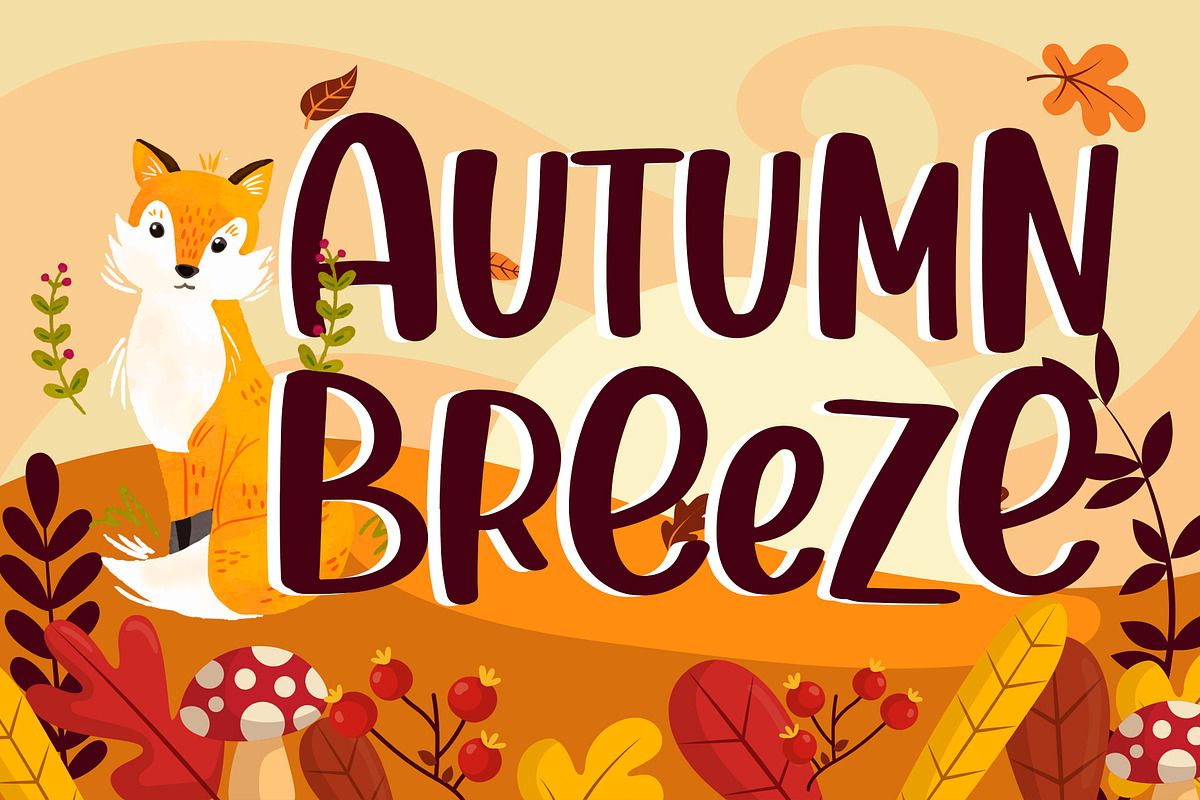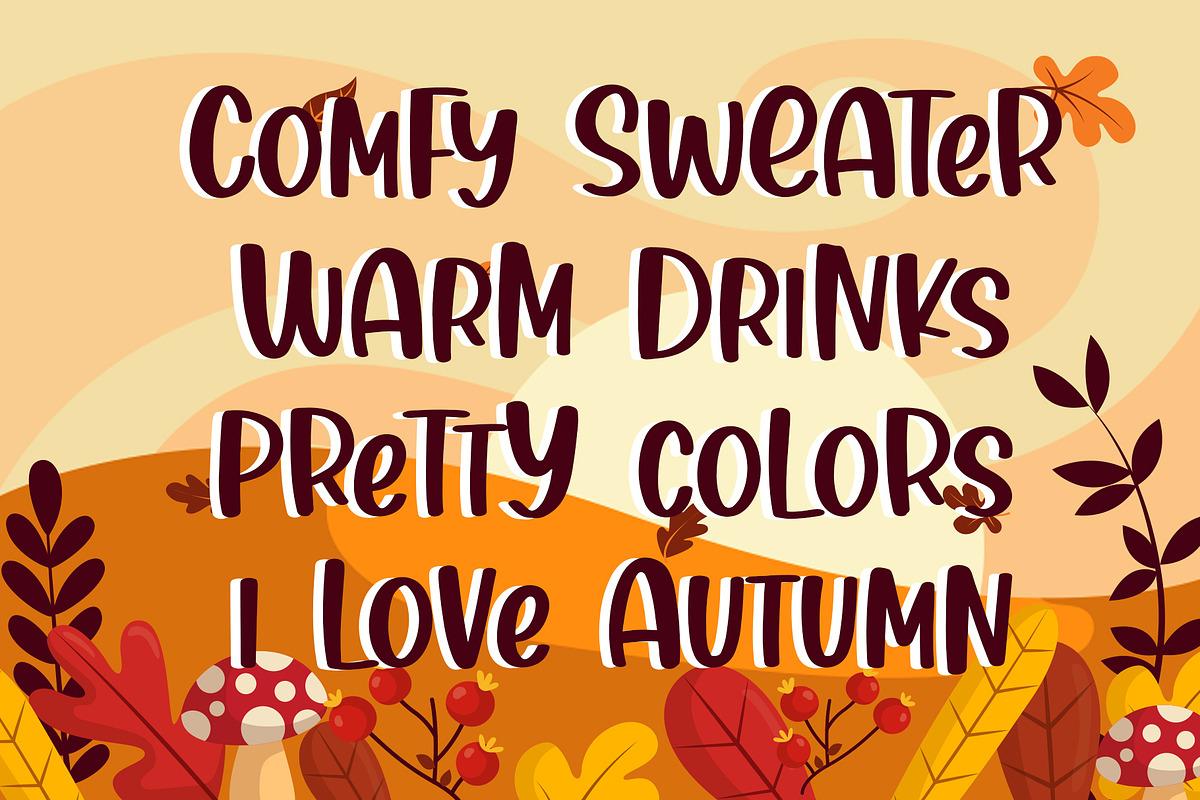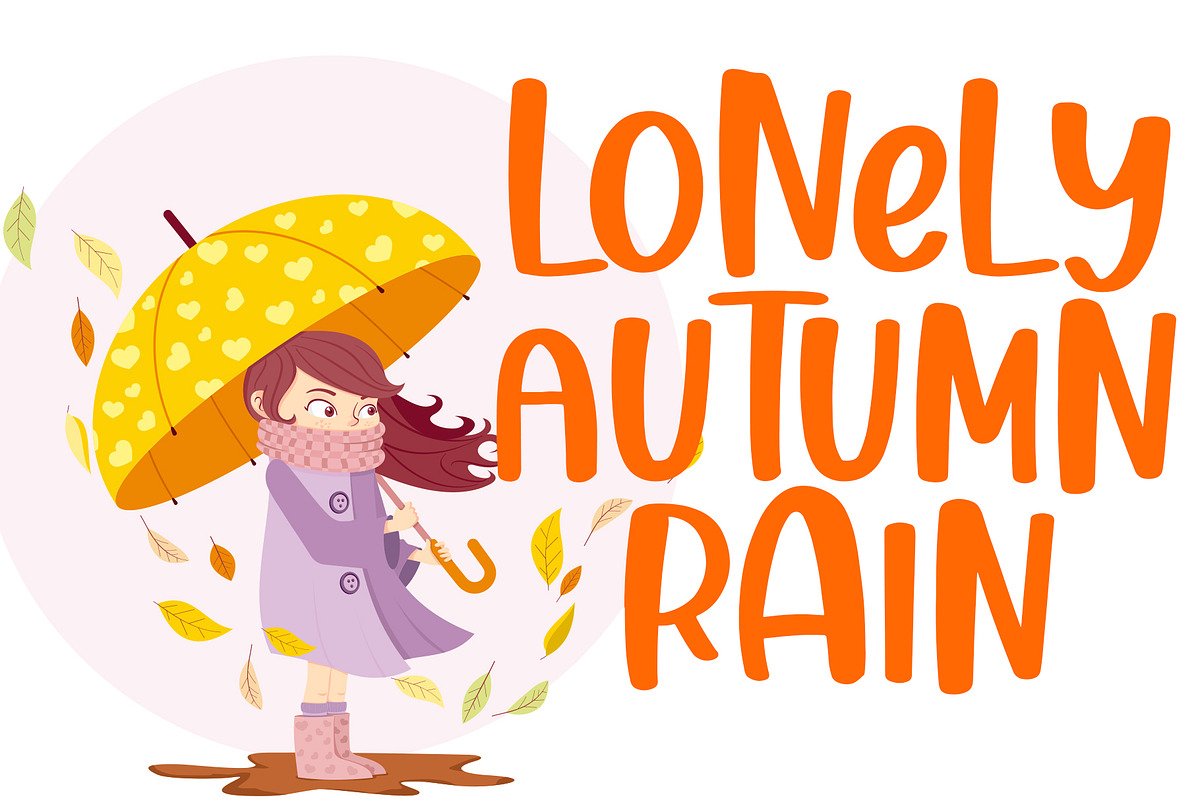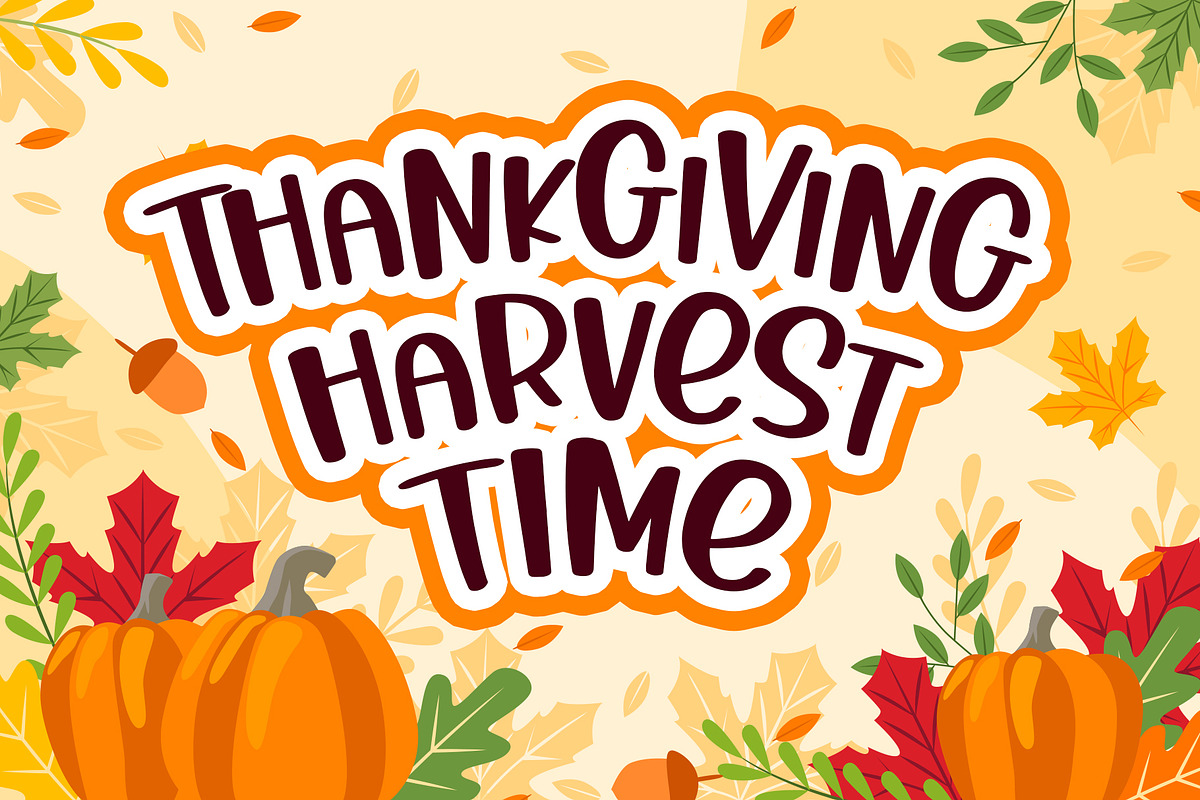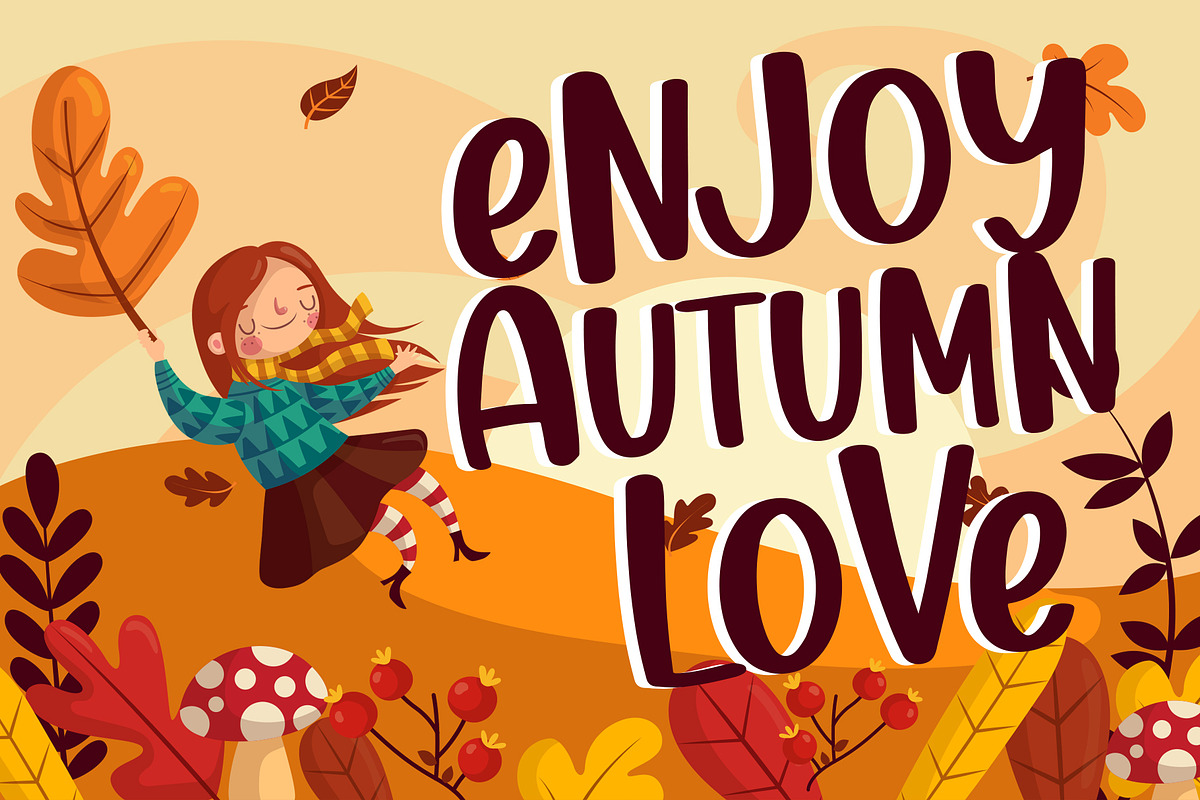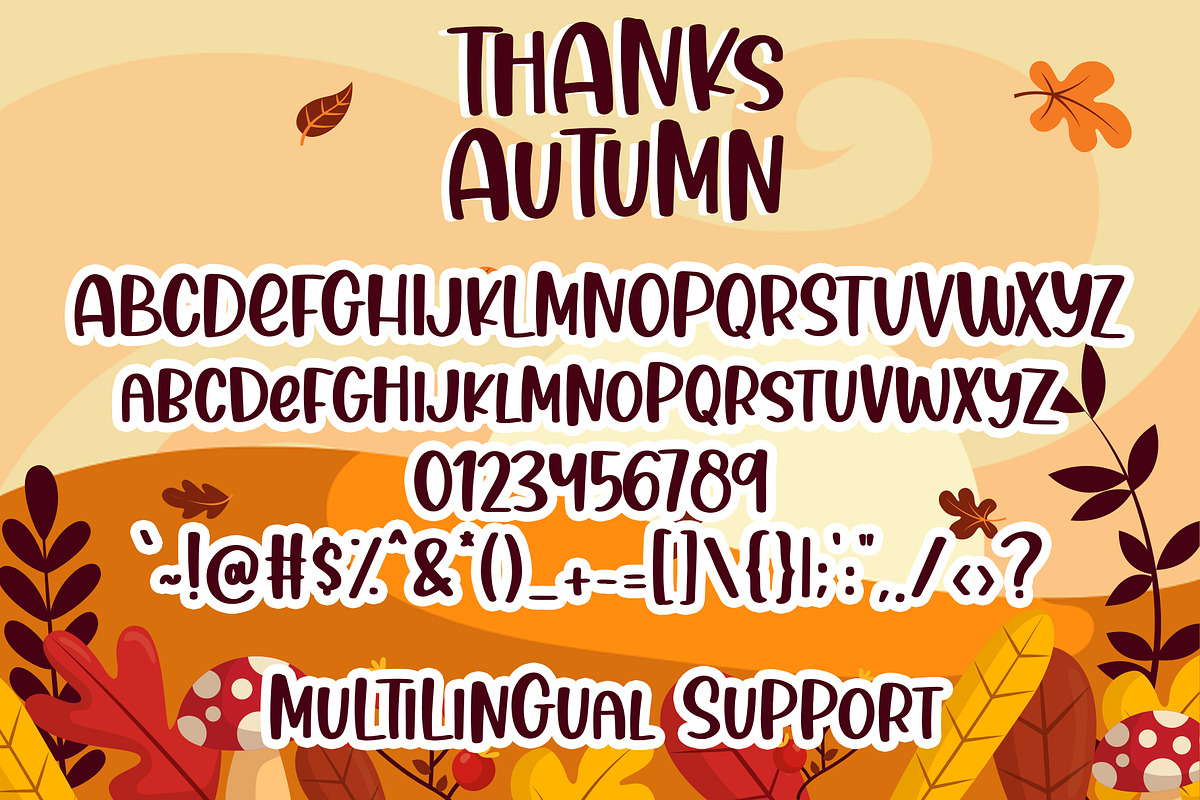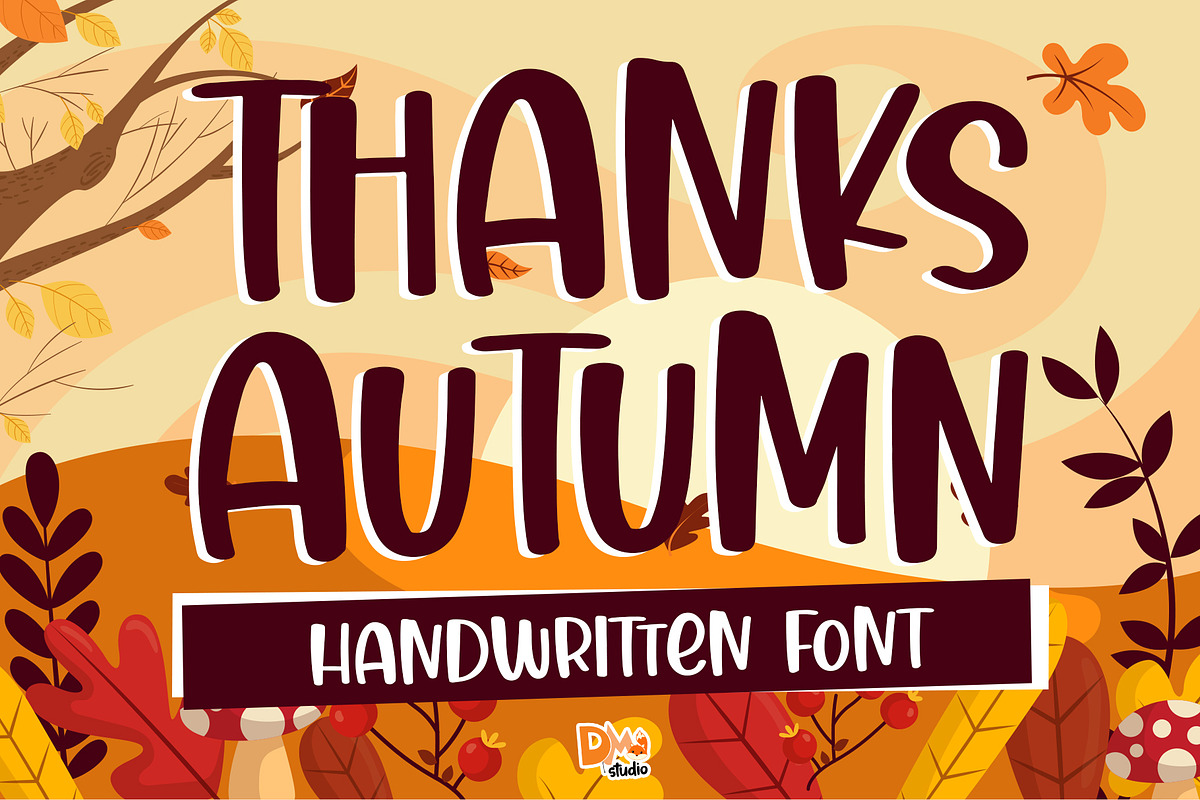
Thanks Autumn - Handwritten Font
All in caps with two heights
Thanks Autumn Sweet and heartwarming font, made with love for your gorgeous project!
- All in caps with two heights
Thanks Autumn - Handwritten Font by Dm Studio fits naturally into Branding, posters, packaging, typography.